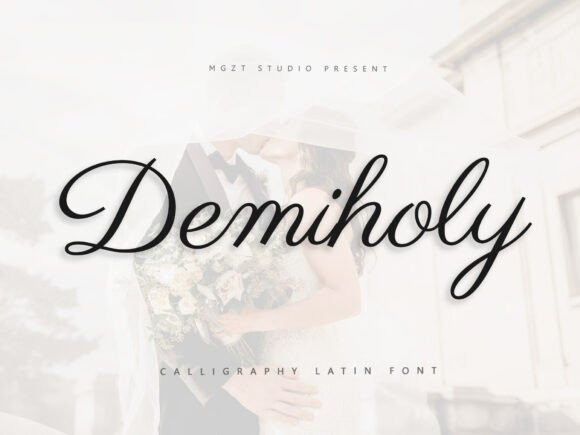
Demiholy Font
Demiholy Font is a graceful and elegant font that combines traditional calligraphy with modern touches. The strokes are soft and natural, creating a sense of movement and artistry. Each letter is carefully crafted, with curvaceous upstrokes and downstrokes, giving it a delicate handwritten feel.